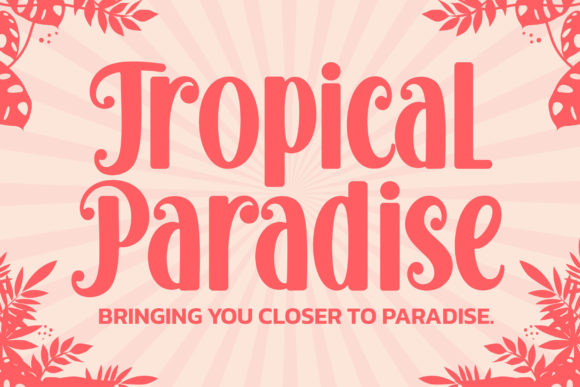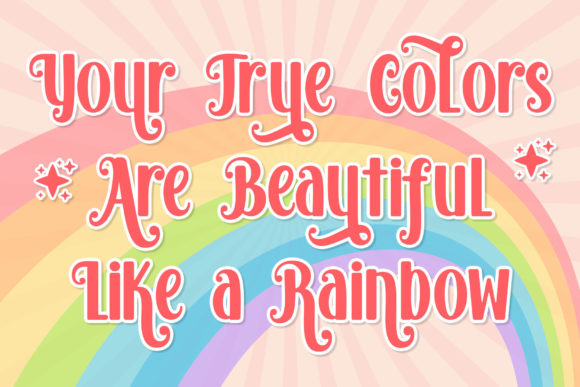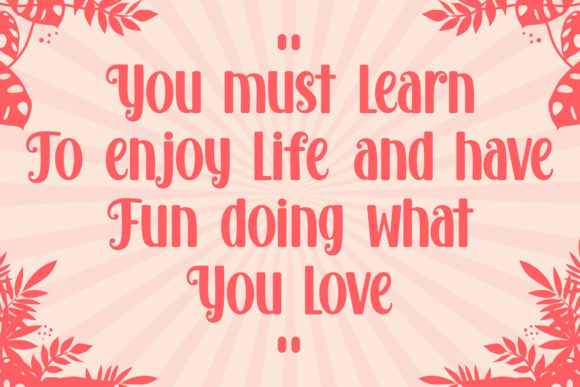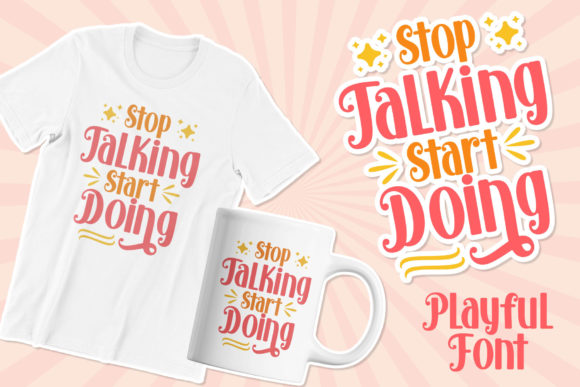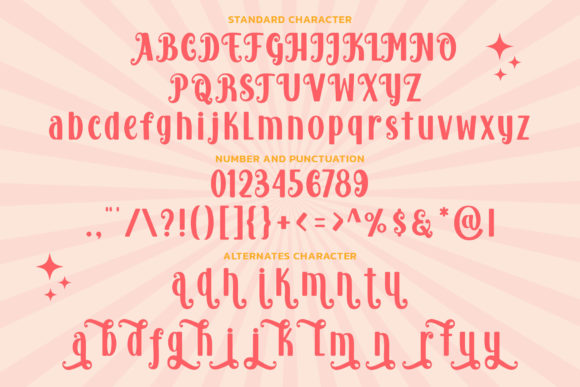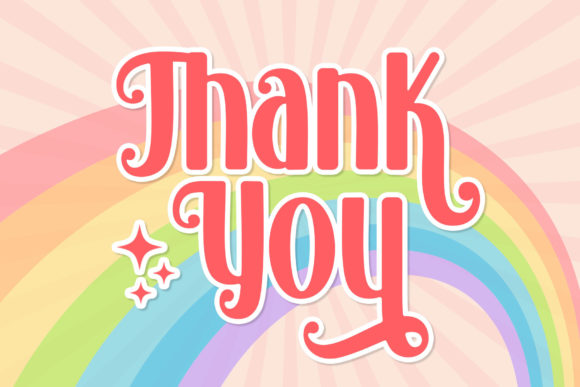
Discover the Magic of Austria Rainbow Font
Do you ever find yourself browsing through design inspiration boards, stuck on a single image that sparks a creative idea? Maybe it’s a beautiful logo, an elegant invitation, or a vibrant social media post that captures your attention. For designers, these moments of inspiration can be the starting point for something truly special. And that’s exactly what the Austria Rainbow Font aims to bring to your creative projects.
This stunning Display font is designed to add a touch of class and sophistication to any design. With its unique and modern look, Austria Rainbow Font is perfect for logos, branding, invitations, stationery, and much more. Its PUA encoded features make it easy to access all the glyphs and swashes, giving you the flexibility to unleash your creativity.
Austria Rainbow Font Key Features
- Unique Character Set: Austria Rainbow Font includes a wide range of characters, including Latin, Cyrillic, and Greek alphabets, as well as various symbols and emojis.
- Color Variations: The font features a range of colors, including pastel shades, bright hues, and metallic tones, allowing users to customize their designs.
- Script and Font Styles: Austria Rainbow Font includes various script and font styles, such as cursive, bold, italic, and condensed, to cater to different design needs.
Austria Rainbow Font Review
At first glance, the Austria Rainbow Font catches the eye with its vibrant and playful aesthetic ✨. The font’s eclectic mix of bright colors and whimsical shapes adds a touch of personality to any design. The font is well-suited for projects that require a carefree and youthful vibe, such as children’s books, party invitations, or social media graphics.
The font’s versatility is another major plus ✨. It can be used for a variety of purposes, from headings to body text, and even for creating custom logos or icons. The font’s bold lines and bright colors make it an excellent choice for eye-catching titles and headings.
One major limitation of the Austria Rainbow Font is its lack of sophistication and elegance ⚠️. The font’s playful nature may not be suitable for more formal or professional projects, such as business reports, academic papers, or luxury brand materials.
Overall, the Austria Rainbow Font is a great choice for designers looking to add a pop of color and personality to their projects ✨. While it may not be suitable for every project, its versatility and playful nature make it a valuable addition to any design library.
Design Considerations
- Use the Austria Rainbow Font for projects that require a youthful and carefree vibe
- Consider using the font for headings and titles to add a touch of personality
- Avoid using the font for formal or professional projects
- Experiment with custom color combinations to create a unique look
Use the Austria Rainbow Font to add a pop of color and personality to your designs. Combine it with other fonts to create a unique and eye-catching look.
The Austria Rainbow Font is perfect for:
- Social media graphics
- Wedding invitations
- Party decorations
Alternatives to Austria Rainbow Font
Great Vibes Font is a fun and playful script font that can be used for various design projects, including posters, invitations, and social media graphics. It’s perfect for creating a lively and energetic atmosphere. Compared to Austria Rainbow Font, Great Vibes Font has a more whimsical feel and is better suited for projects that require a carefree and youthful vibe.
Carolyna Pro is a modern and elegant script font that is ideal for high-end designs, such as luxury brands, weddings, and special occasions. It’s perfect for creating a sophisticated and refined atmosphere. Compared to Austria Rainbow Font, Carolyna Pro has a more polished and sophisticated feel, making it suitable for projects that require a touch of luxury and elegance.